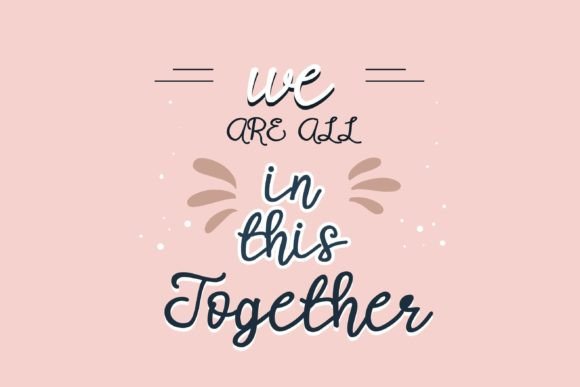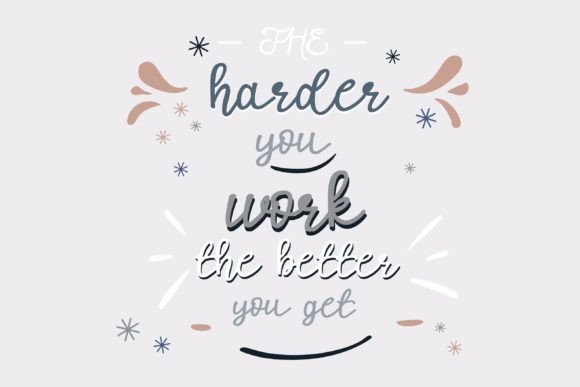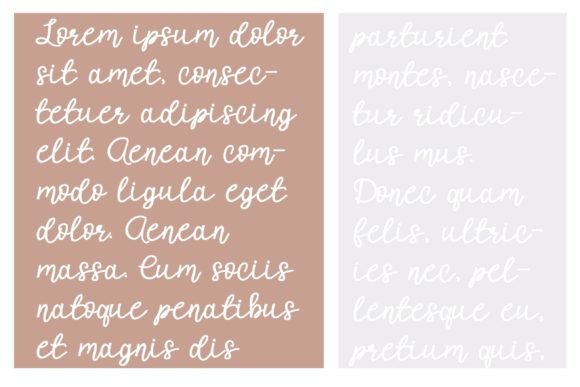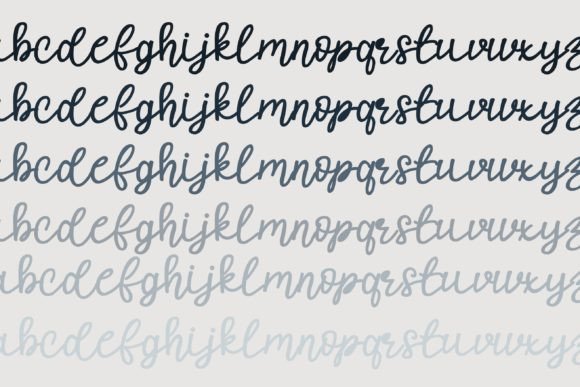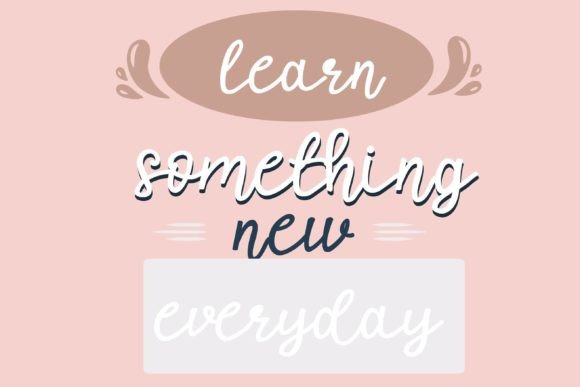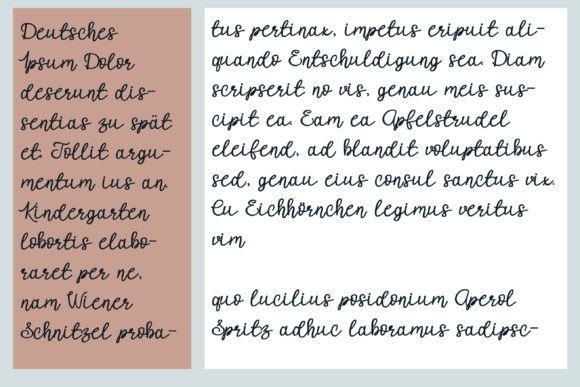
Introduction to Exposition Font Font
Fonts play a crucial role in design, and the Exposition Font font is a typeface that brings both character and versatility to any project. Whether you’re working on a branding project, a website, or a print design, the Exposition Font font offers a unique style that can elevate your work.
This font looks natural, stylish, and perfect for any extraordinary project that requires a handwritten feel.
Its versatile style looks lovely on wedding invitations, thank you cards, quotes, greeting cards, logos, business cards, and every other design which needs a customized touch .
Key Features of Exposition Font Font
Why Choose Exposition Font Font?
The Exposition Font font is more than just a typeface – it’s a design tool that helps you communicate your message with style and clarity. Its unique character set and versatile design make it suitable for a wide range of applications, from elegant invitations to bold headlines.
With its carefully crafted letterforms and balanced proportions, the Exposition Font font ensures readability and visual appeal across all mediums.
What makes Exposition Font font special?
The Exposition Font font stands out with its unique design, exceptional readability, and versatility across various design applications.